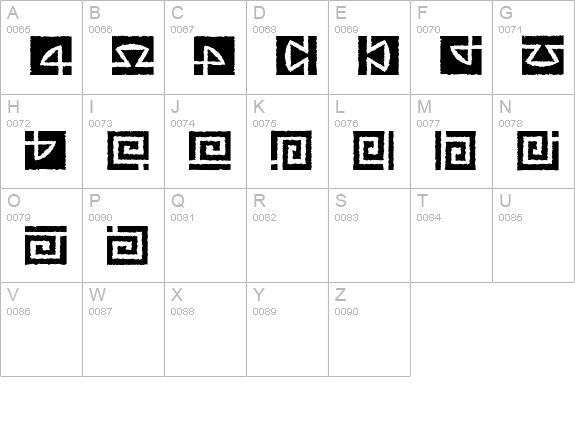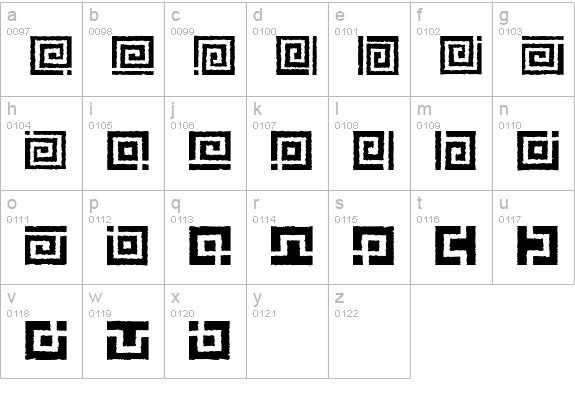
Stoned-BorderOne font is a unique and eye-catching typeface that exudes a sense of ruggedness and individuality. Its bold, stony texture gives it a distinct appearance that is perfect for projects requiring a strong visual impact. The rough edges and uneven lines of this font add a touch of raw authenticity to any design. What makes Stoned-BorderOne font even more appealing is that it is available for free download at FontsMarket.com. This means that you can easily add this striking font to your collection without any cost. Whether you're working on a poster, logo, or any other creative project, Stoned-BorderOne font is sure to make a bold statement and set your work apart. Download it today and unleash its unique charm in your designs!